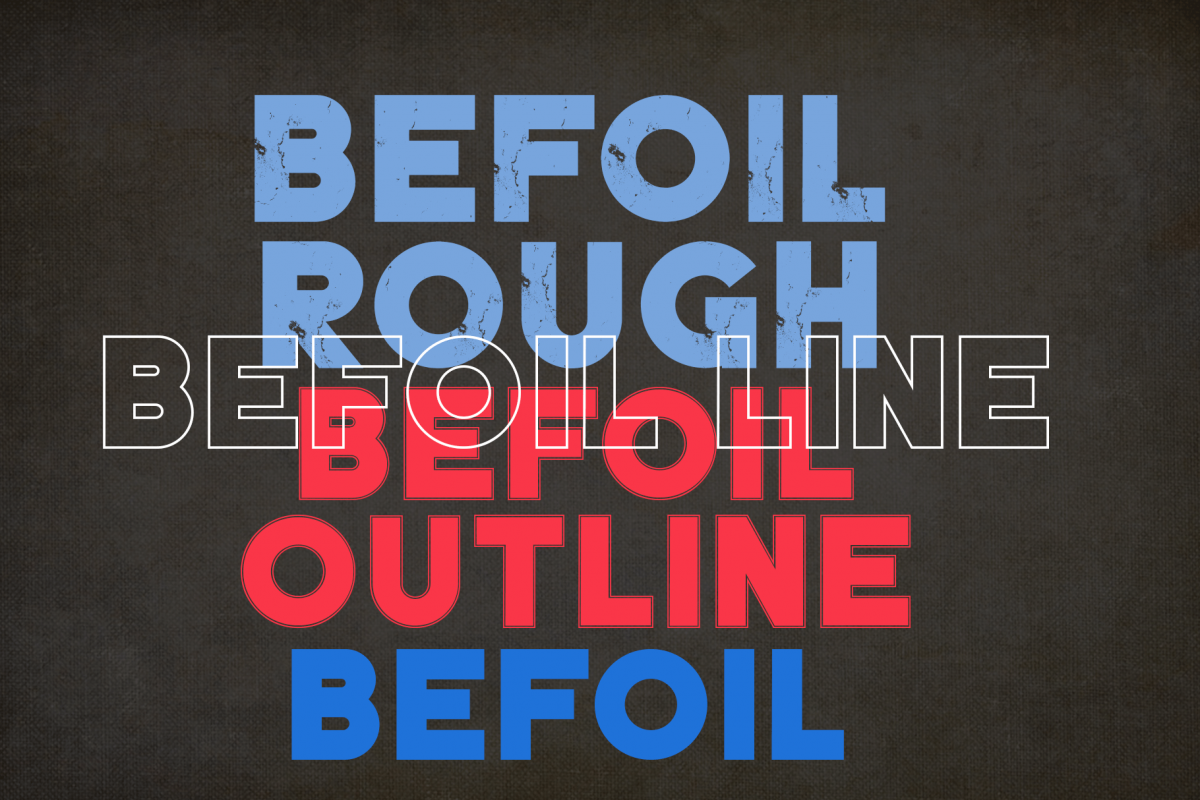
BEFOIL
BEFOILLINE-Regular
BEFOILOUTLINE-Regular
BEFOIL-Regular
BEFOILROUGH-Regular
BEFOIL is a sans bold font, has strong and firm characters,BEFOIL provides a clear and elegant look for logos, quotes, advertisements, and more. BEFOIL is a versatile typography full of the characters you want. with BEFOIL you work.BEFOIL has style standards, Stylistic Alternate and ligatures. and includes uppercase letters, numbers and punctuation.
BEFOIL have a family:
BEFOIL Normal
BEFOIL Line
BEFOIL Outline
BEFOIL Rough